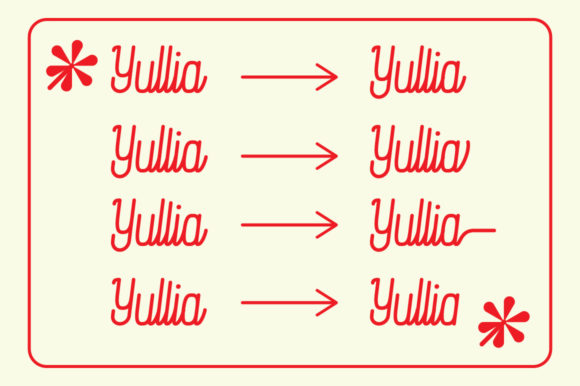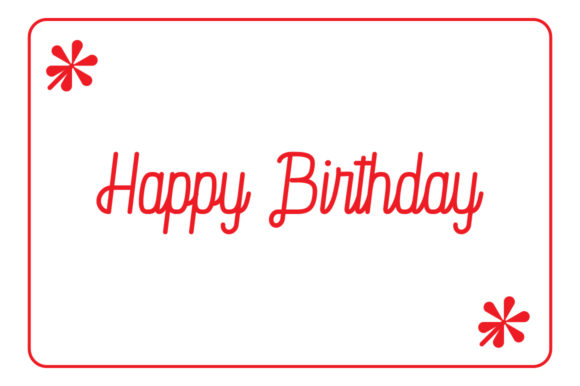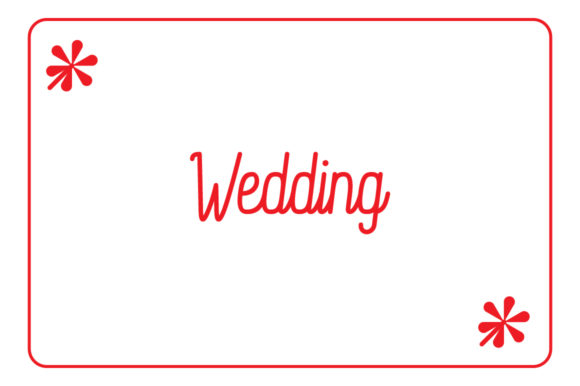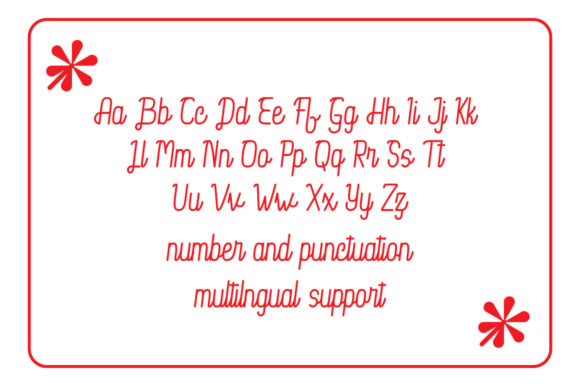
HomeScript FontsYullia Font Script Fonts Yullia Font FacebookXPinterestWhatsApp Yullia Font Poster 2 Yullia Font Poster 3 Yullia Font Poster 4 Yullia Font Poster 5 About Yullia Font Yullia is a smooth and lovely round font. It is perfectly suited for a wide variety of projects! DOWNLOAD ON CREATIVE FABRICAThis font is sold and delivered by Creative Fabrica. Font Canyon may earn a commission if you buy through this link. People also explored Ermin Sweet Font Famous Script Font Catalistefa Signature Font Fortune Cookies Font Warning Tables Font Wedding Font Kinder Kids Font Mood Booster Font Art Signature Font 301 0 TagsYullia Font Previous articleUnicorn Princess FontNext articleDellana Font LEAVE A REPLY Cancel reply Comment: Please enter your comment! Name:* Please enter your name here Email:* You have entered an incorrect email address! Please enter your email address here Website: Save my name, email, and website in this browser for the next time I comment. Personal Use Free Zojihun Personal Use Free Read more about this font Santhony Personal Use Free Read more about this font Arnprior Personal Use Free Read more about this font Bukhari Script Personal Use Free Read more about this font BLOG Top 10 Handwritten Fonts That Elevate Your Designs Top 10 Handwritten Fonts That Will Elevate Your Designs Handwritten fonts bring a warm, personal touch to every creative project. Whether you're designing logos, invitations,... Free vs Paid Fonts: Why Investing in Premium Fonts Is Worth It The 10 Best Handwriting Fonts to Add Personality to Your Designs Exploring Font Trends